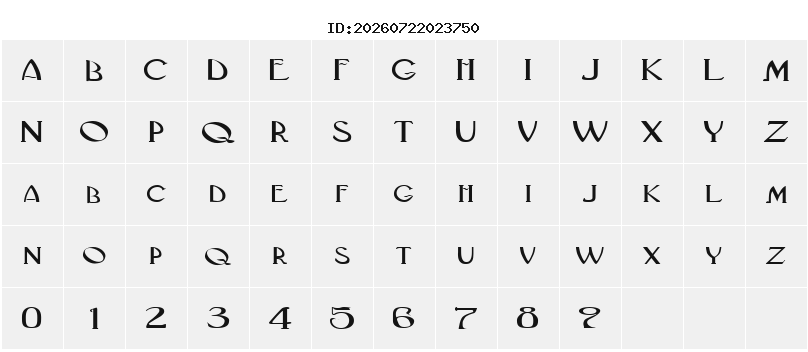
About FZ BASIC 33 EX.ttf
FZ BASIC 33 EX.ttf is a modern, elegant sans-serif font designed for ultimate readability and visual harmony. Perfect for branding, headlines, web design, and print materials.